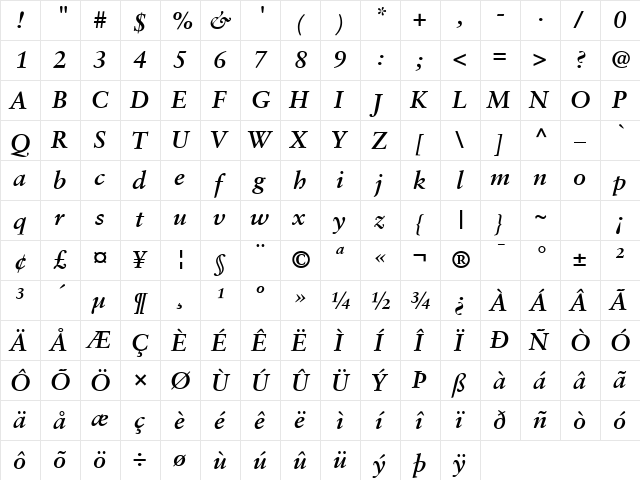
Garamond Retrospective SSi Bold Italic Font Preview
Design Context for Garamond Retrospective SSi Typeface
Garamond Retrospective SSi wears its vintage influences proudly, with letterforms that recall mid-century signage, classic packaging, and nostalgia-driven design. The slanted form adds forward momentum and visual energy. The heavy weight commands attention and anchors typographic hierarchies.
Perfect for vintage-inspired branding, retro packaging, nostalgia campaigns, and period-accurate editorial design.
Font Pairing: Combine Garamond Retrospective SSi with a simple slab or neutral sans — period-accurate companions reinforce the vintage feel without competing for attention.
Pro Tip: Use Garamond Retrospective SSi for headlines and pull quotes rather than body copy — its personality is best appreciated in short, focused bursts.